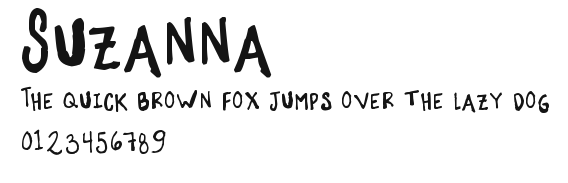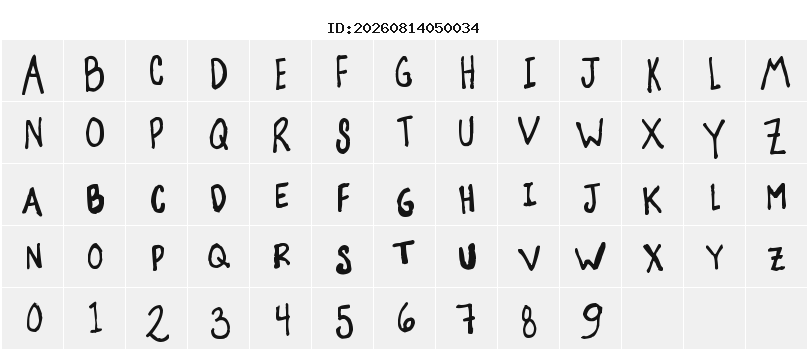
Suzanna Preview
• Font Name: Suzanna
• Full Font Name: Suzanna
• PostScript Name: Suzanna
About Suzanna.ttf
Suzanna.ttf is a modern, elegant sans-serif font designed for ultimate readability and visual harmony. Perfect for branding, headlines, web design, and print materials.